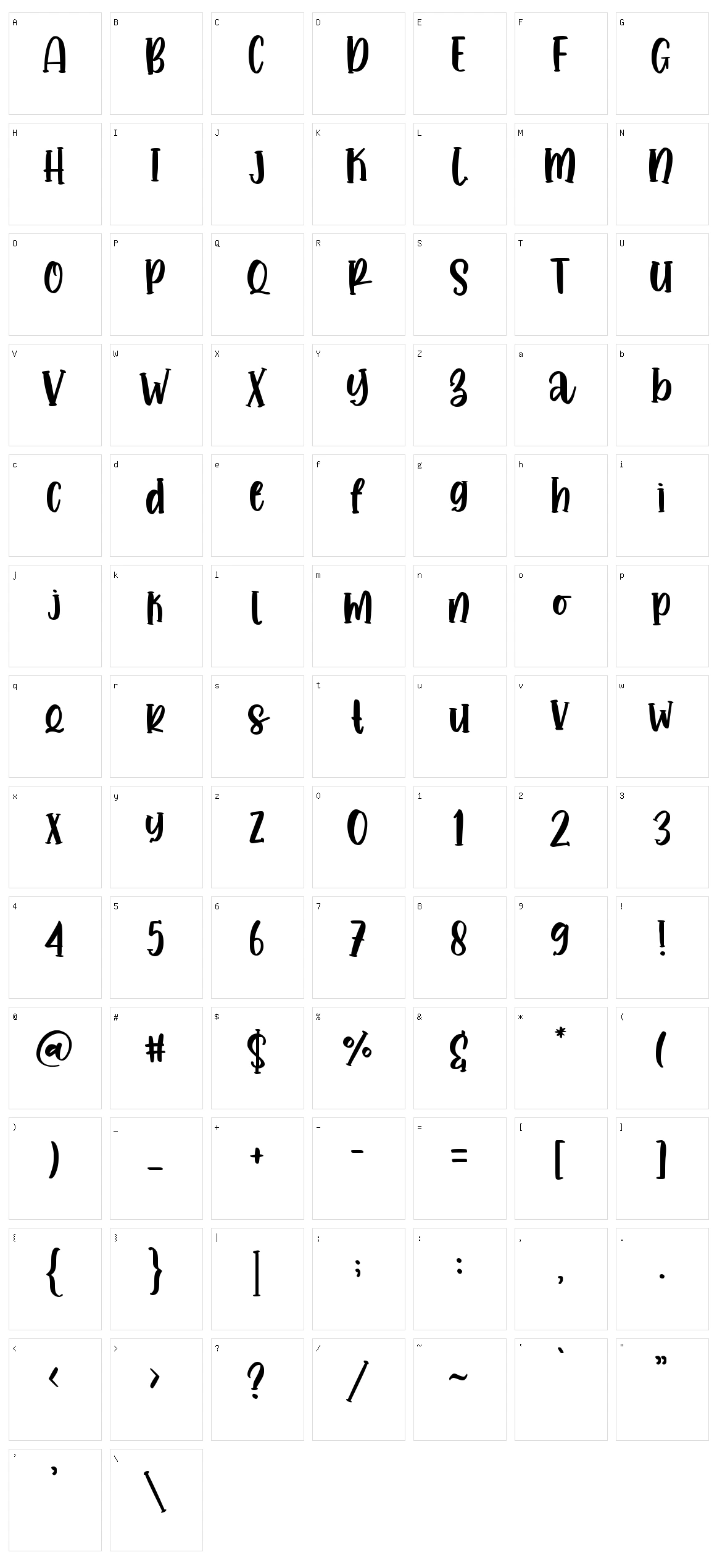
The free font Lemonade Fabrica is carefully designed by Abo Daniel Studio, showcasing a thoughtful balance of creativity and usability and falls under the Cartoon font style. When you download the ZIP file, it contains only 768.13 KB of font files, making it lightweight and quick to download. Please review the license details below to understand permitted usage and distribution rights. If license information is not available, we recommend using this font for personal projects only or contacting the author directly for commercial usage permissions.
LEMONADE FABRICA
- quirky font with doodles -